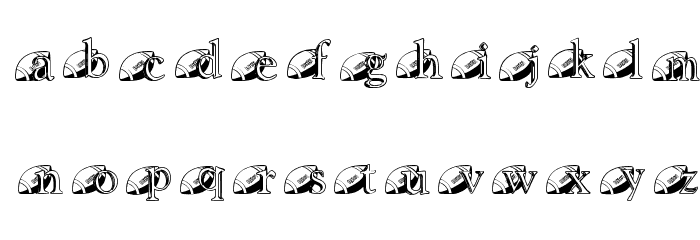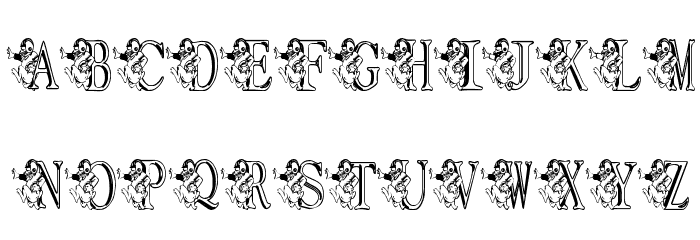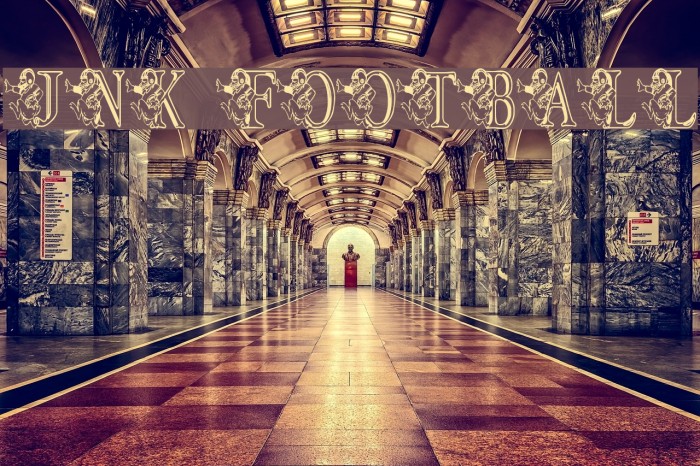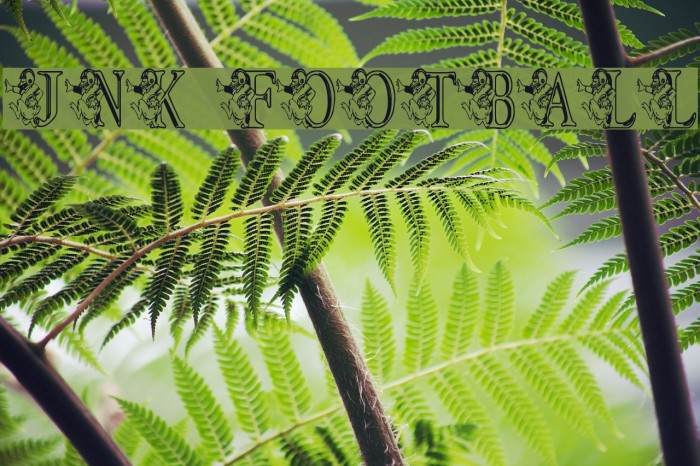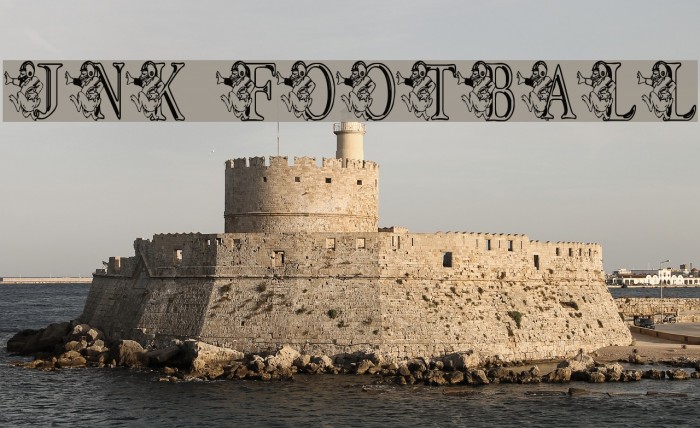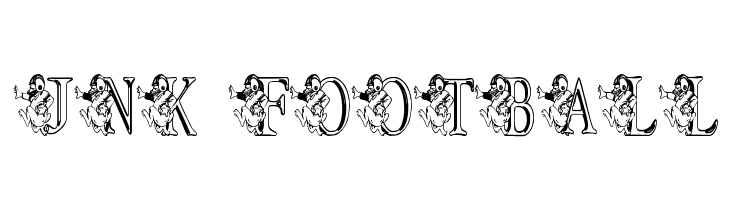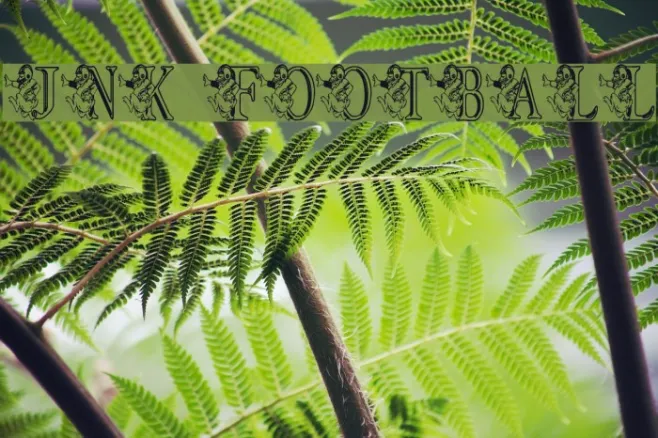
JNK FOOTBALL Font
This decorative font features a unique blend of bold, stylized letters intertwined with intricate football-themed illustrations. Each character is adorned with detailed graphics, creating a playful and dynamic appearance. The uppercase letters are particularly elaborate, with each one incorporating elements like footballs and players, making it ideal for sports-related designs. The lowercase letters maintain the theme with simpler yet cohesive designs. The font's overall look is energetic and eye-catching, perfect for projects that require a sporty and fun aesthetic.
A decorative font with football-themed illustrations integrated into bold, stylized letters.
- Proposed Projects: Ideal for sports team branding, event posters, merchandise designs, and playful sports-themed invitations.